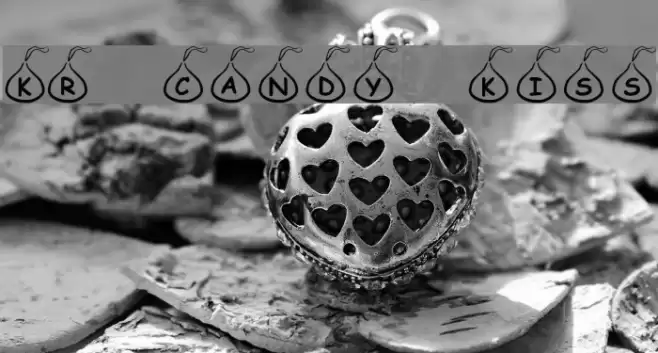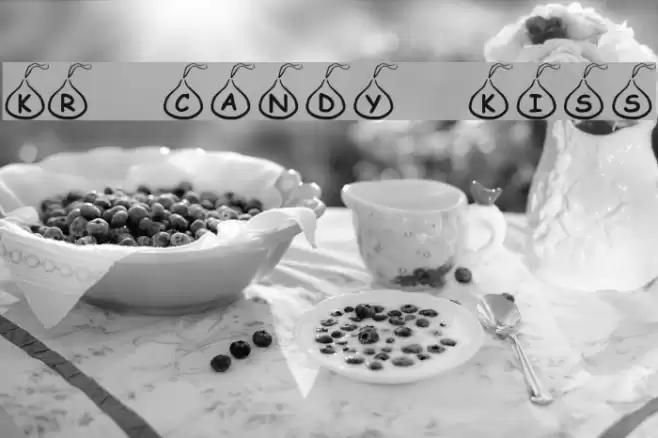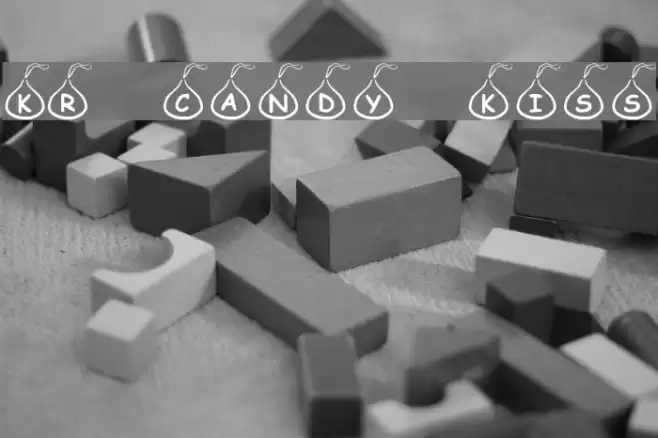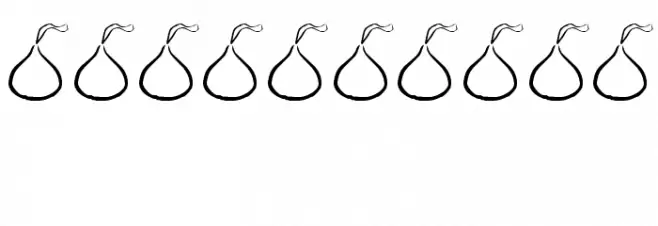
KR Candy Kiss Font
KR Candy Kiss Description
This playful and whimsical font features each letter encased within a candy kiss shape, complete with a small tag at the top. The letters are bold and rounded, creating a friendly and inviting appearance. The design is consistent across both uppercase and lowercase letters, maintaining a uniform look. The font lacks numbers and special characters, focusing solely on the alphabet. Its unique style makes it ideal for projects that require a fun and lighthearted touch, such as children's party invitations or candy-themed branding.
A playful font with letters inside candy kiss shapes, perfect for fun projects from Uncategorized fonts.
- Proposed Projects: Ideal for children's party invitations, candy-themed branding, or playful greeting cards.